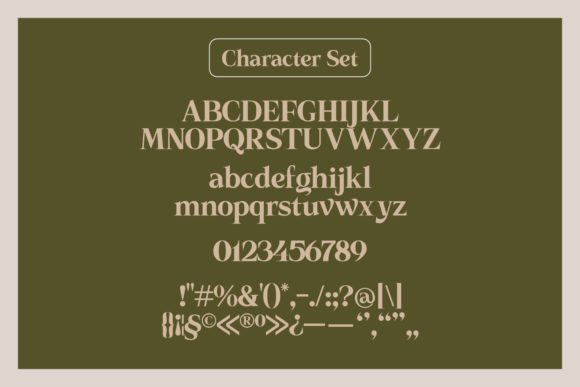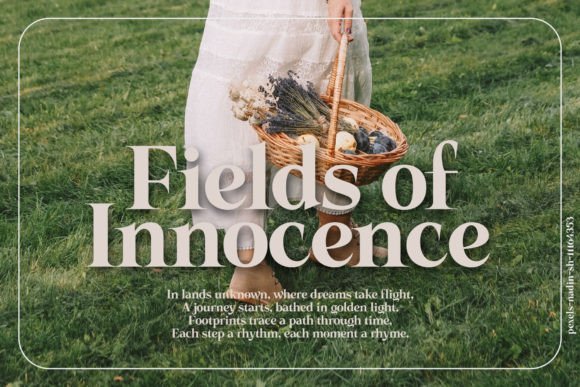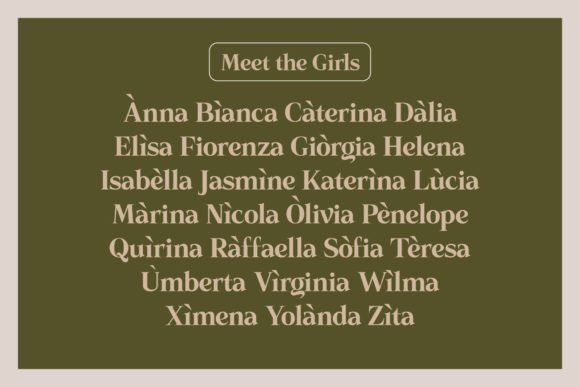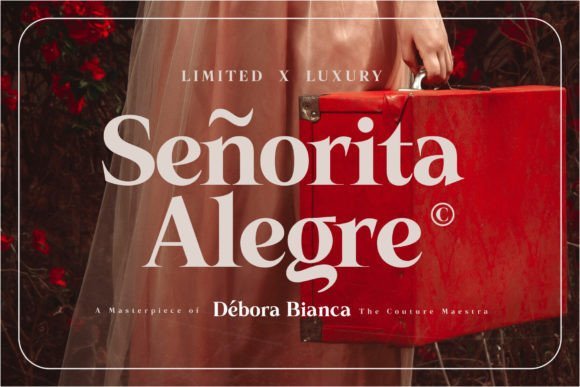
Hawthorne Vintage Font
Introducing Hawthorne Vintage Serif, a font that whispers timeless elegance and nostalgia into every letter. Inspired by the classic serifs of the past, this font effortlessly blends vintage charm with modern sophistication. Its graceful curves, meticulously crafted details, and subtle serifs make it the perfect choice for projects that demand a touch of refinement.